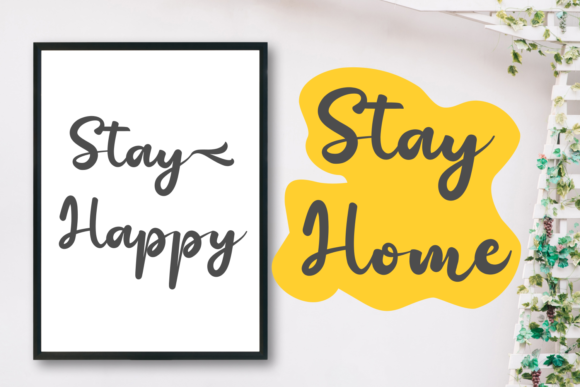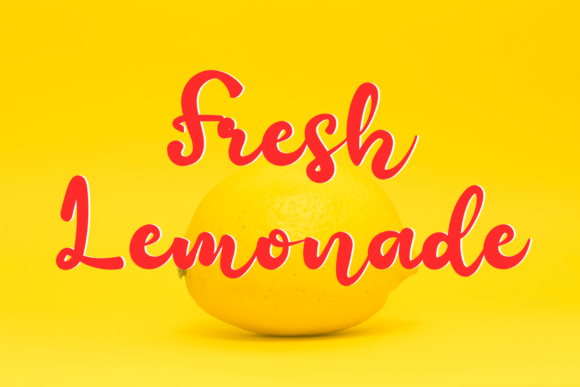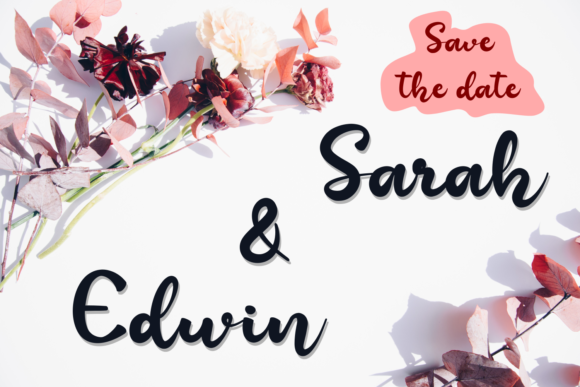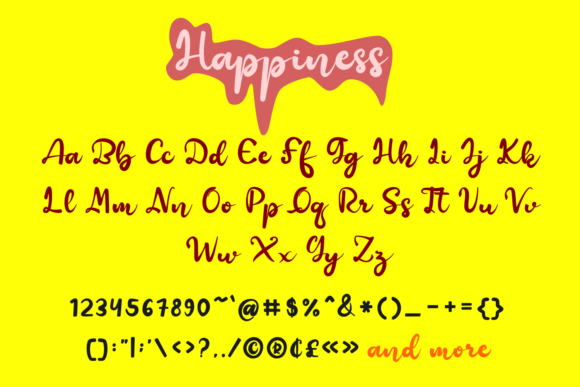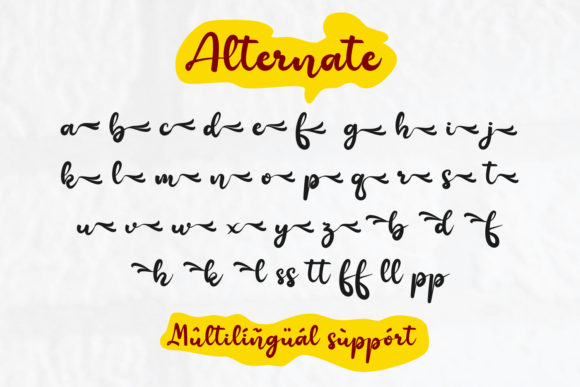
Happiness Font: Elevate Your Designs with a Touch of Elegance
Are you tired of using the same old fonts in your designs? Do you want to add a touch of elegance and whimsy to your creations? Look no further than the Happiness Font, a magical handwritten font that is sure to make your designs stand out. In this article, we’ll take a closer look at the Happiness Font, its features, and how you can use it to create original and outstanding designs.
What is Happiness Font?
Happiness Font is a carefully crafted handwritten font that exudes elegance and sophistication. With its unique and quirky touch, this font is perfect for designers and crafters who want to add a personal touch to their designs. Whether you’re creating invitations, greeting cards, or social media graphics, the Happiness Font is sure to make your designs shine.
Features of Happiness Font
So, what makes the Happiness Font so special? Here are just a few of its key features:
- Handwritten with love: The Happiness Font is carefully handcrafted with attention to detail, giving it a unique and personal touch.
- Elegant and whimsical: This font combines elegance and whimsy, making it perfect for a wide range of design projects.
- Magical and fun: The Happiness Font has a playful and magical quality that is sure to bring a smile to your face.
- Perfect for designs: Whether you’re creating digital or print designs, the Happiness Font is the perfect choice for making original and outstanding designs.
How to Use Happiness Font in Your Designs
Now that you know a little bit about the Happiness Font, let’s talk about how you can use it in your designs. Here are a few ideas to get you started:
- Invitations and greeting cards: The Happiness Font is perfect for creating beautiful and unique invitations and greeting cards for special occasions.
- Social media graphics: Add a touch of elegance and whimsy to your social media graphics with the Happiness Font.
- Branding and packaging: Use the Happiness Font to create custom branding and packaging that stands out from the crowd.
- Digital and print designs: The Happiness Font is perfect for a wide range of digital and print designs, from flyers and brochures to posters and banners.
Tips for Getting the Most Out of Happiness Font
Here are a few tips for getting the most out of the Happiness Font:
- Experiment with different colors: The Happiness Font looks great in a variety of colors, so don’t be afraid to experiment and find the perfect color scheme for your design.
- Mix and match with other fonts: The Happiness Font pairs well with a variety of other fonts, so feel free to mix and match to create a unique look.
- Use it sparingly: While the Happiness Font is beautiful, it can be overwhelming if used too much. Use it sparingly to add a touch of elegance and whimsy to your designs.
In conclusion, the Happiness Font is a magical handwritten font that is sure to elevate your designs with a touch of elegance and whimsy. With its unique and quirky touch, this font is perfect for designers and crafters who want to add a personal touch to their creations. Whether you’re creating invitations, social media graphics, or branding and packaging, the Happiness Font is the perfect choice for making original and outstanding designs.